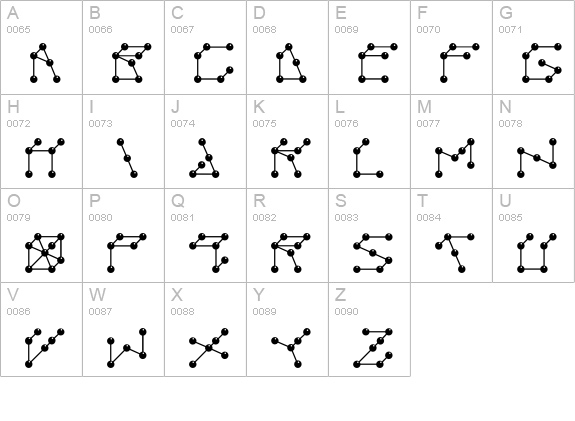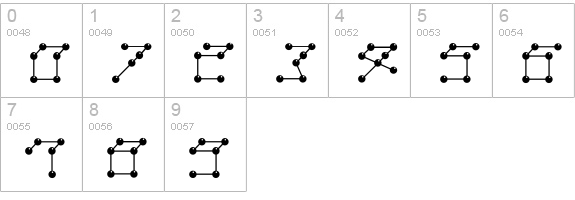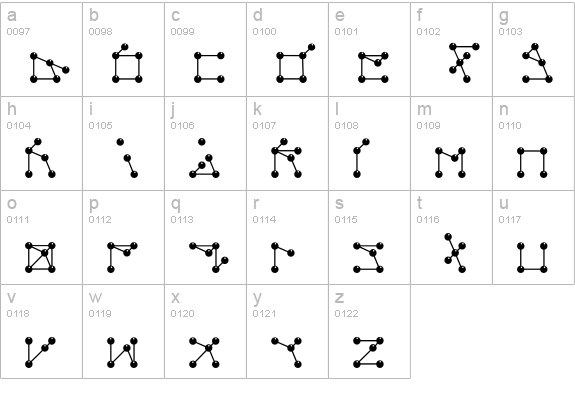
MetallicElement-Clear Font Details
MetallicElement-Clear font is a sleek and modern typeface that exudes sophistication and elegance. Its metallic-inspired design gives it a unique and futuristic appearance, making it perfect for projects that require a touch of contemporary style. The clean lines and sharp edges of MetallicElement-Clear font make it ideal for use in both digital and print designs, adding a polished and professional look to any project. Best of all, MetallicElement-Clear font is available for free download at FontsMarket.com. This means that you can easily access and use this stunning font in your creative endeavors without any cost. Whether you're designing a website, creating marketing materials, or working on a personal project, MetallicElement-Clear font is sure to elevate your work with its modern aesthetic and eye-catching appeal. Download MetallicElement-Clear font today and take your designs to the next level.